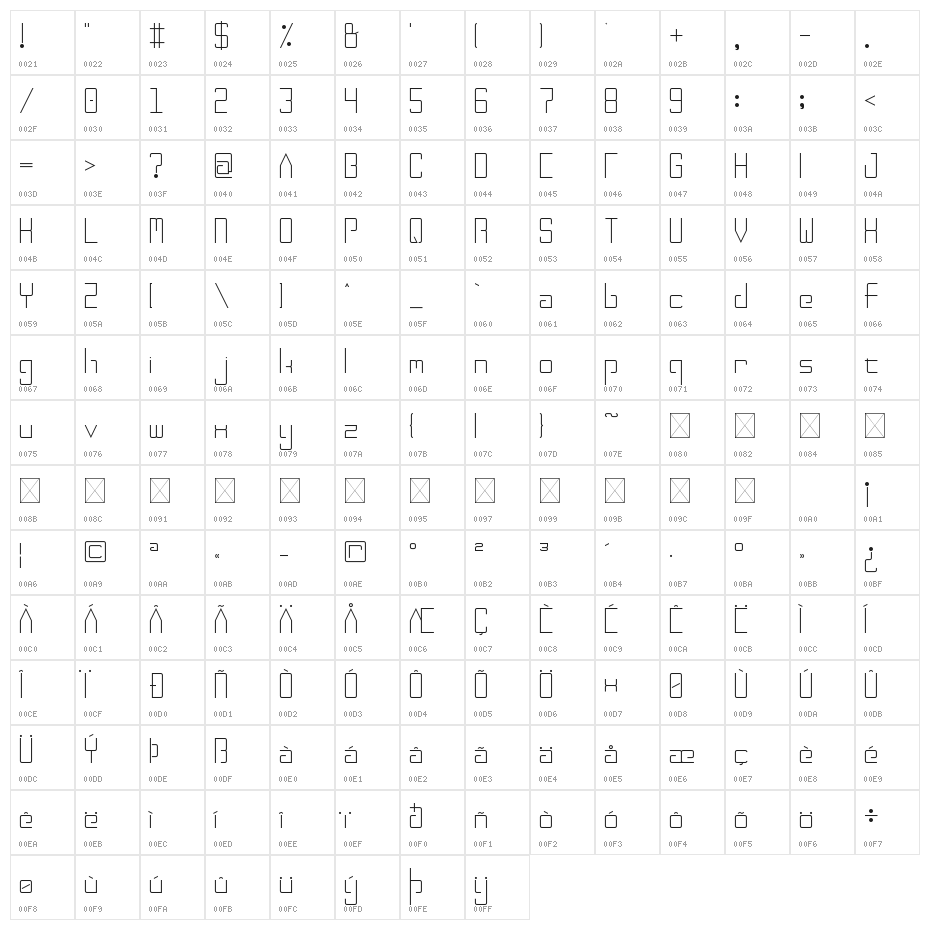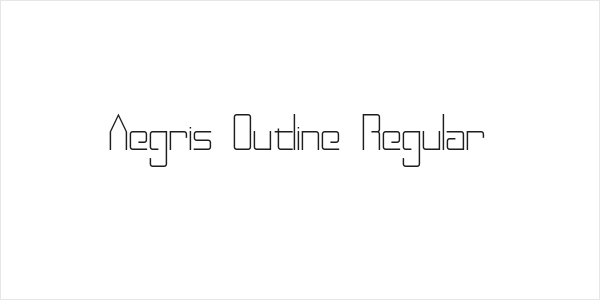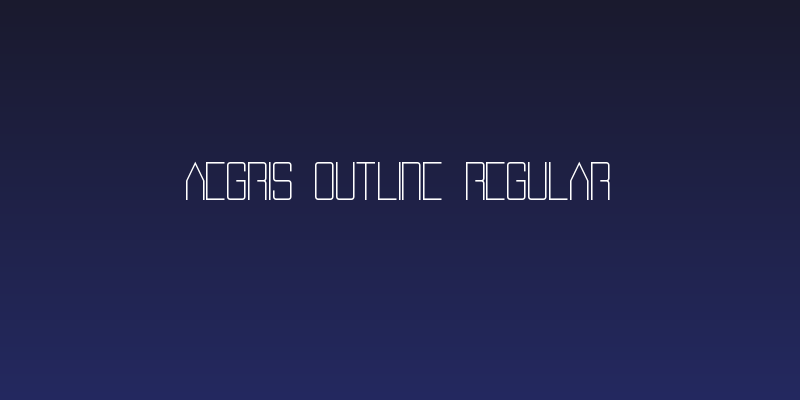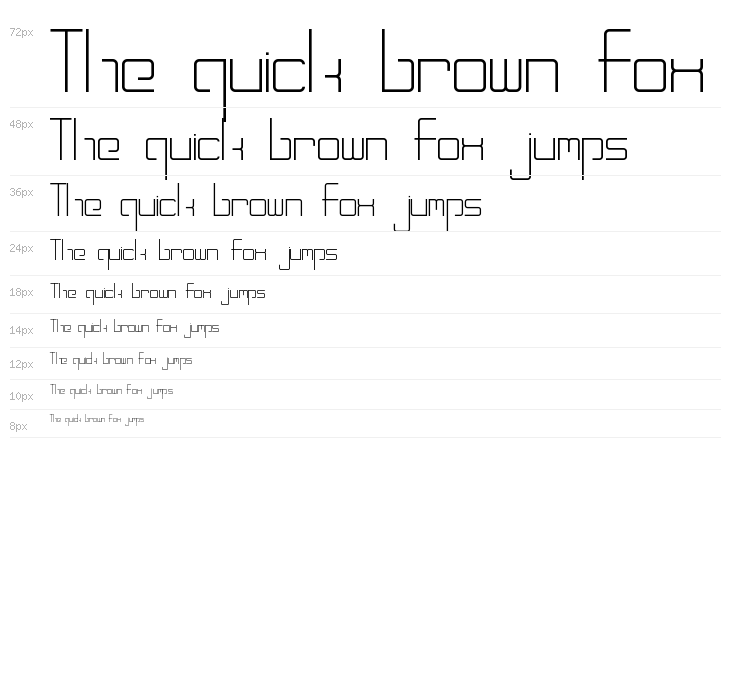
Aegris Outline Regular Font
Aegris Outline Regular Description
This font features a distinct outline style with geometric and angular shapes. The characters are constructed with thin, consistent lines, giving them a modern and minimalist appearance. The uppercase letters are tall and narrow, while the lowercase letters maintain a similar geometric structure, providing a cohesive look. Numbers and special characters follow the same design principles, ensuring uniformity across all elements. The overall aesthetic is clean and futuristic, making it suitable for contemporary design projects.
Proposed ProjectsIdeal for tech branding, modern posters, digital interfaces, and futuristic-themed designs.